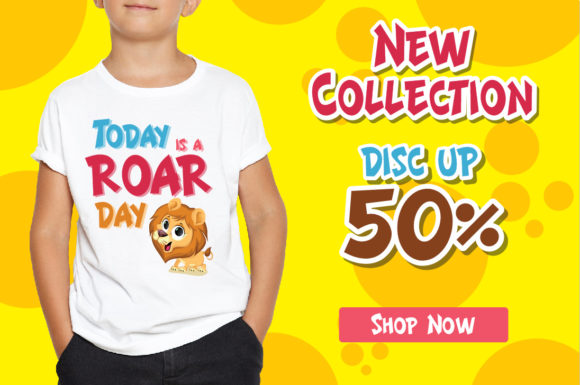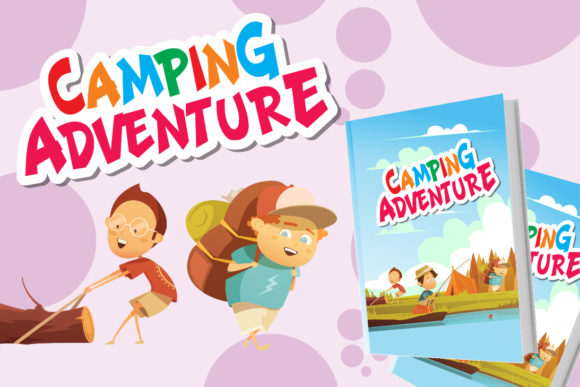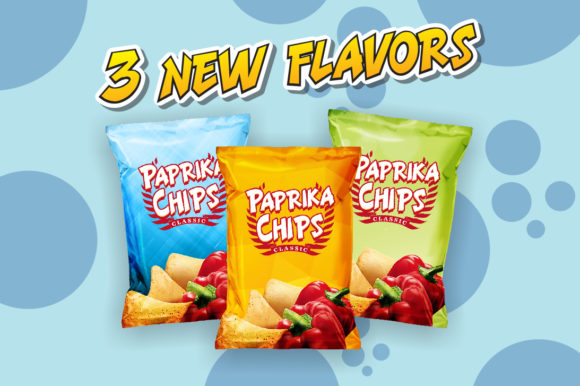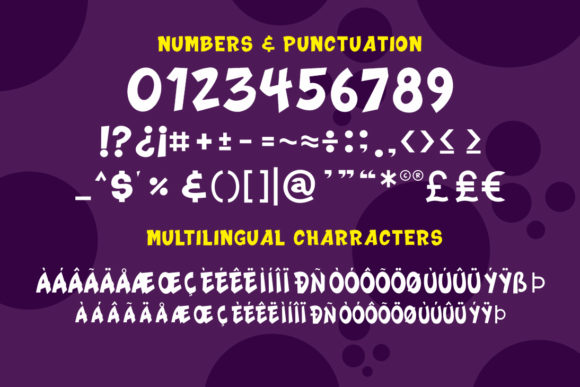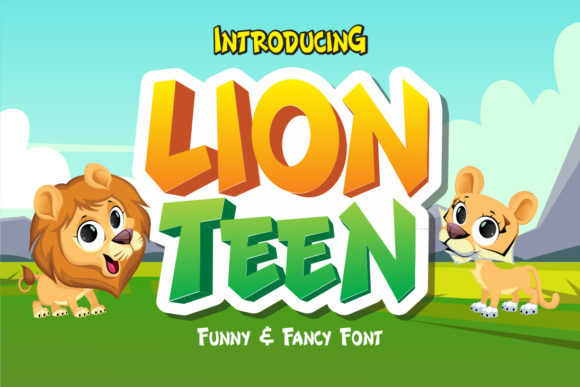
Lion Teen
About Lion Teen Font
As a funny and cute display font, Lion Teen makes the perfect font for adding a cute and playful touch to your designs.